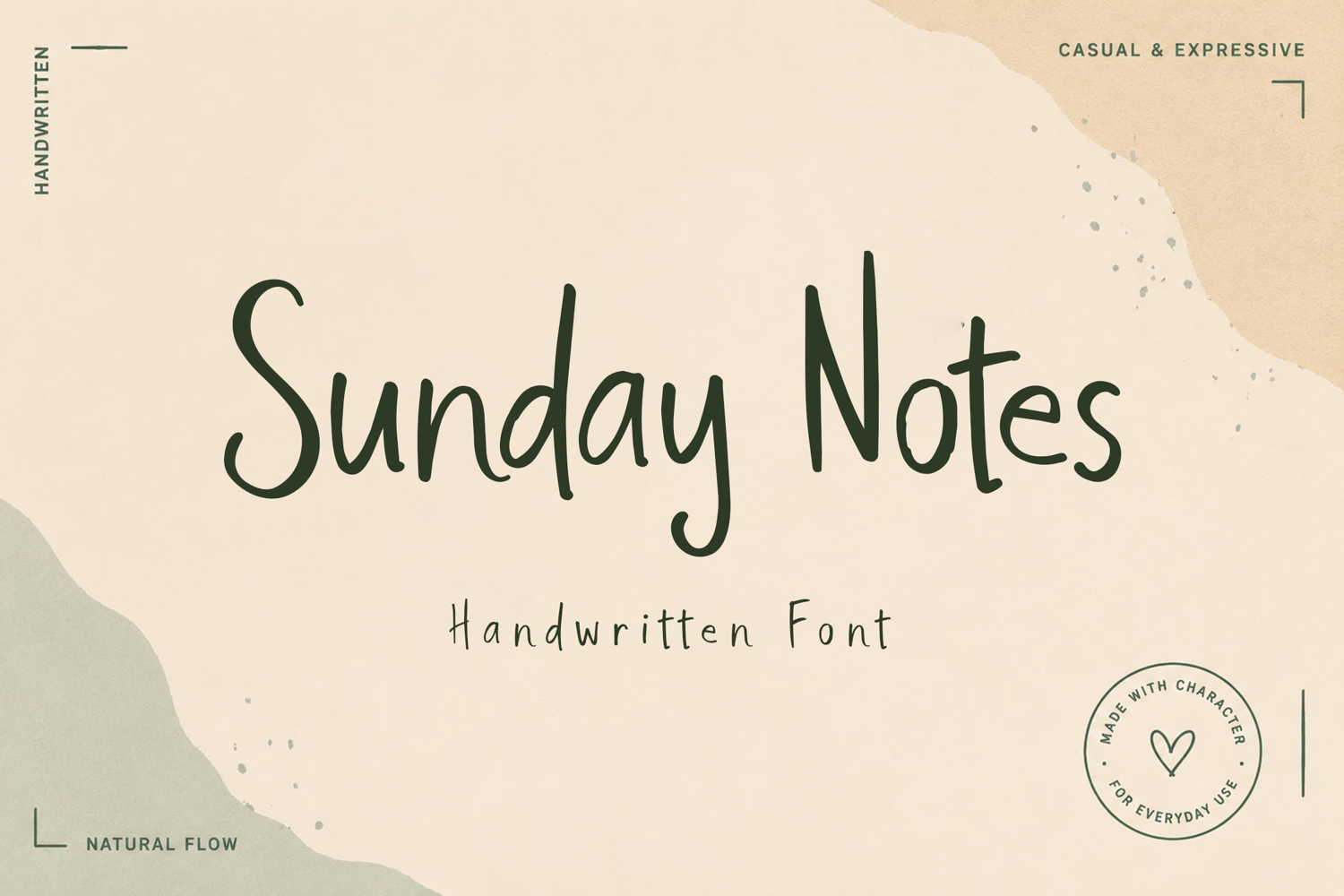
Sunday Notes - Handwritten Font
SundayNotes
Sunday Notes is a casual handwritten font that captures the warmth and simplicity of natural pencil writing. Inspired by everyday notes, journals, and relaxed handwritten lettering, this font features clean strokes, organic shapes, and an authentic handcrafted feel that makes every design look approachable and genuine.
With its smooth flow and easy readability, Sunday Notes is perfect for lifestyle branding, wedding invitations, greeting cards, packaging, social media content, scrapbook projects, stationery, quotes, book covers, photography branding, and marketing materials. The font delivers a relaxed and friendly personality while maintaining a clean and professional appearance.
Its natural imperfections and expressive character create a timeless aesthetic that works beautifully in both modern and vintage-inspired designs. Whether you're building a cozy brand identity, designing heartfelt invitations, or creating visually engaging content, Sunday Notes brings warmth, charm, and authenticity to every project.
• Uppercase & Lowercase Characters
• Natural Handwritten Style
• Easy to Read
Bring a touch of effortless creativity and everyday charm to your work with Sunday Notes, a handwritten font designed to make every message feel warm, inviting, and memorable.